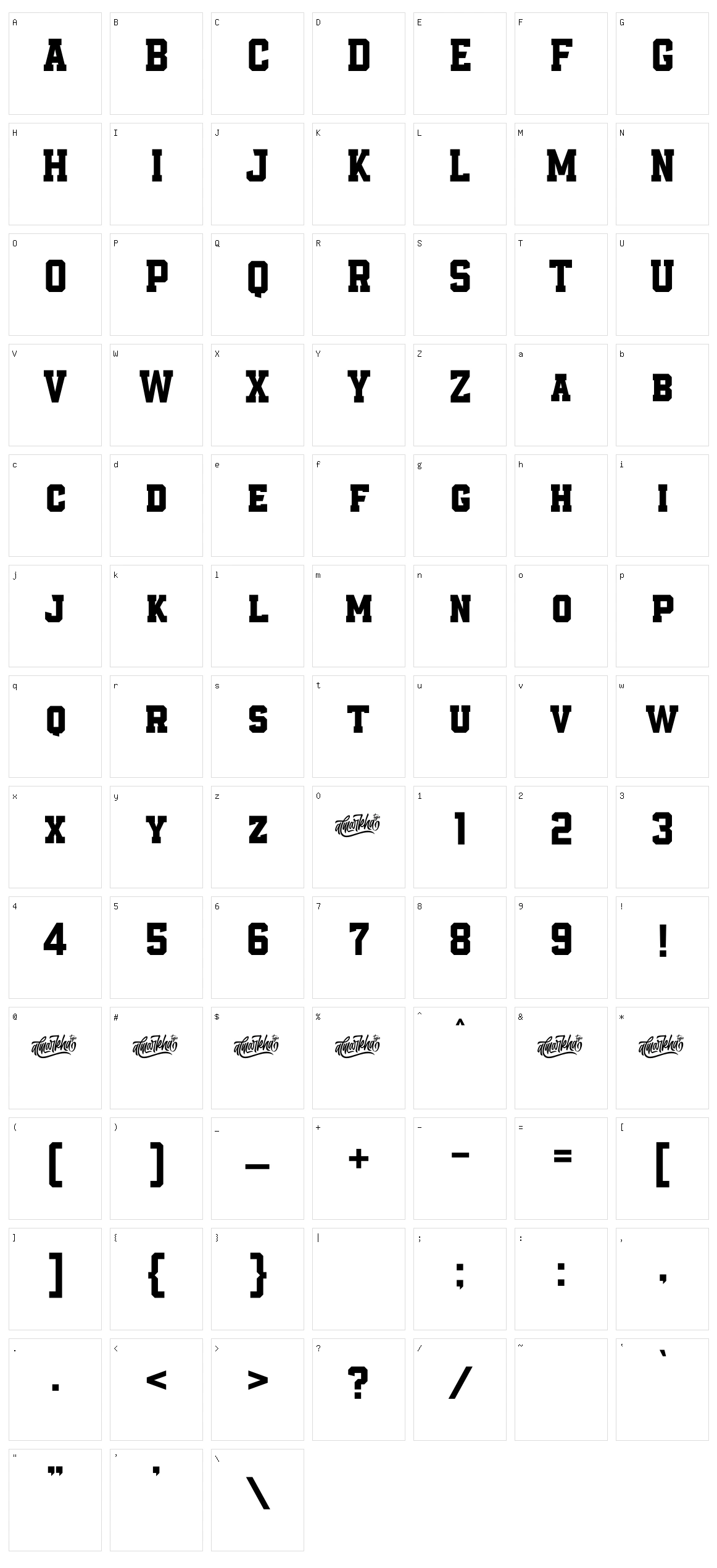
The free font Empirez is carefully designed by Almarkhatype, showcasing a thoughtful balance of creativity and usability and falls under the Old School font style. When you download the ZIP file, it contains only 815.02 KB of font files, making it lightweight and quick to download. Please review the license details below to understand permitted usage and distribution rights. If license information is not available, we recommend using this font for personal projects only or contacting the author directly for commercial usage permissions.
Empirez Font By Almarkhatype Studio